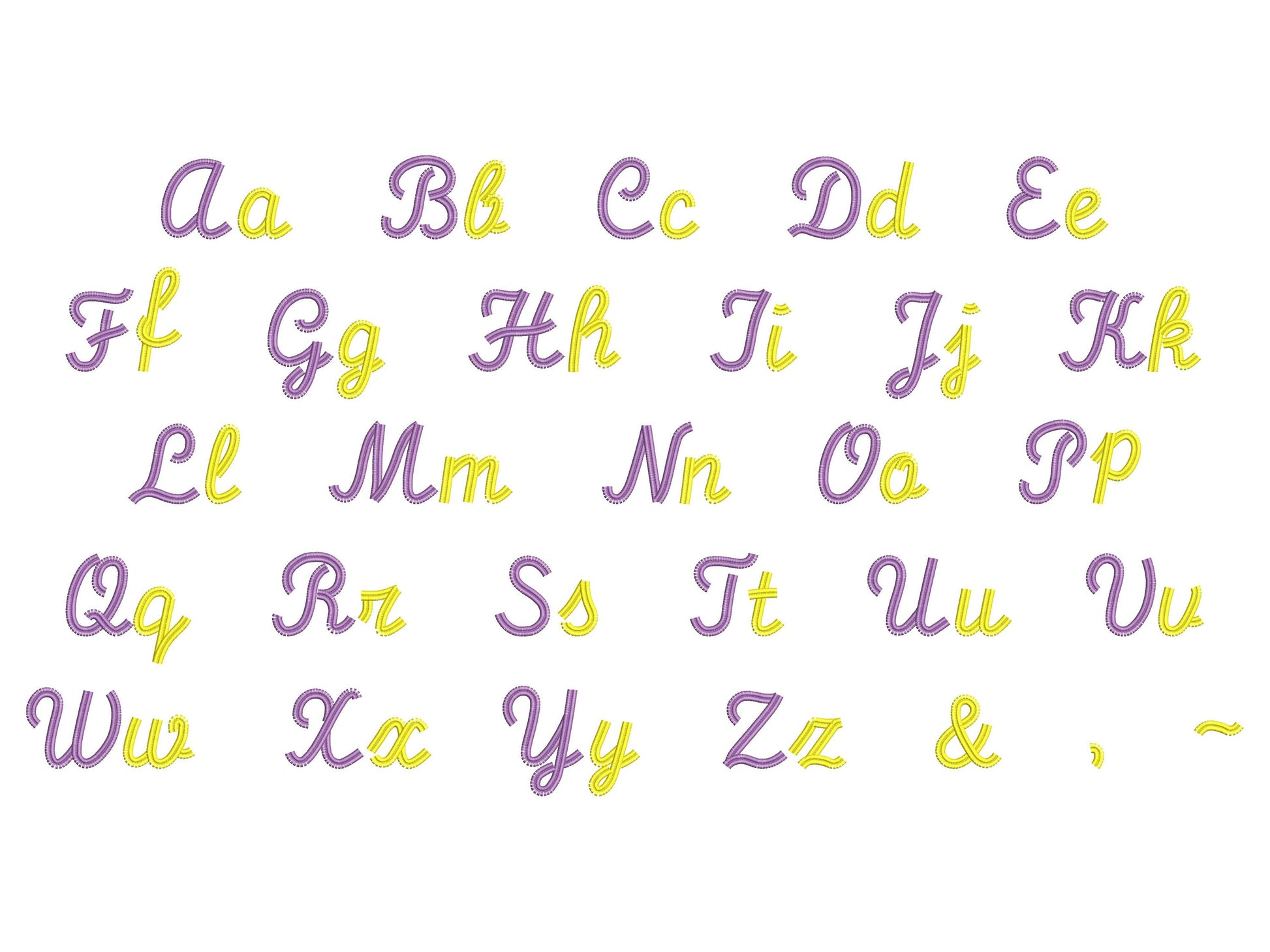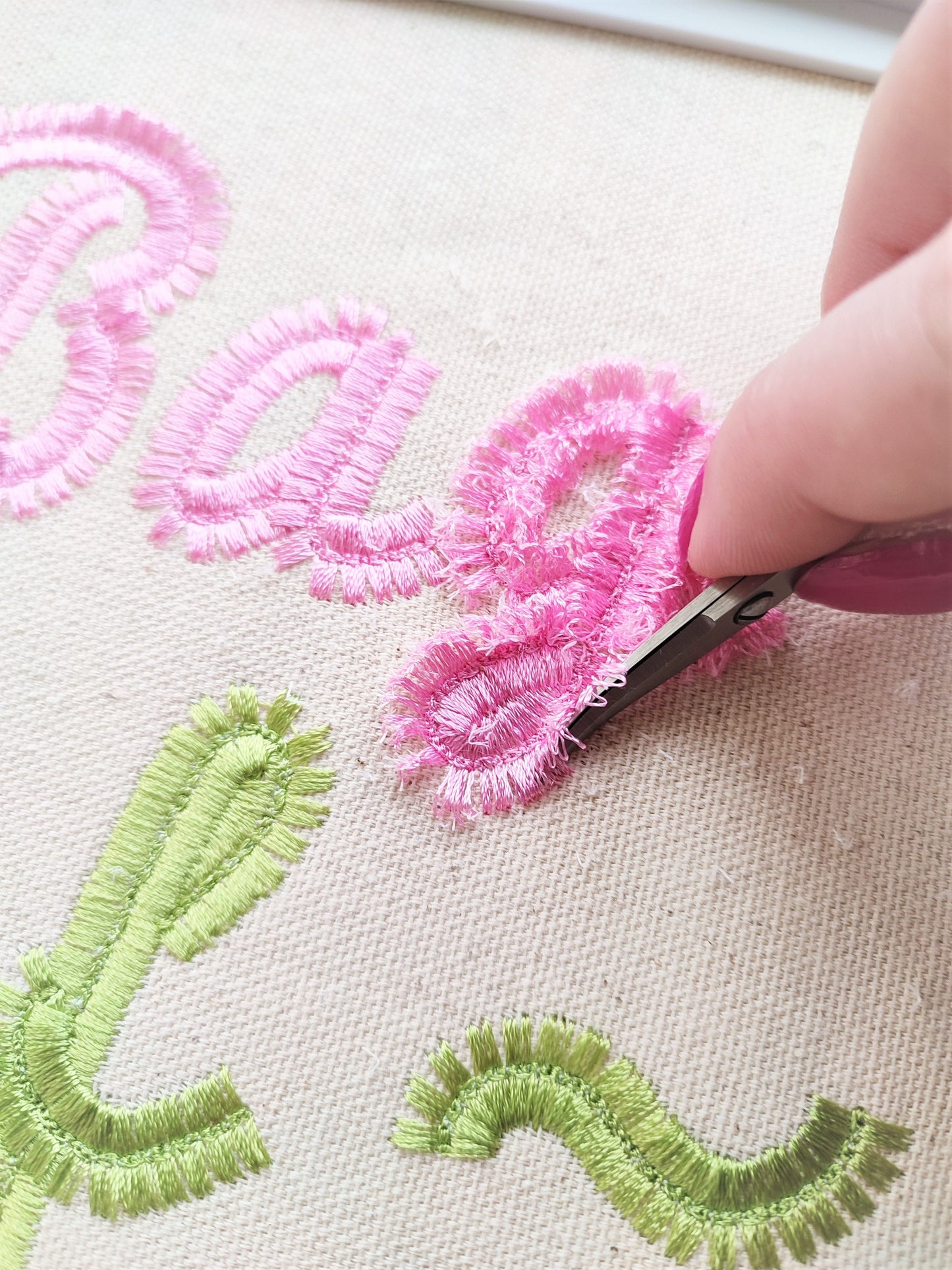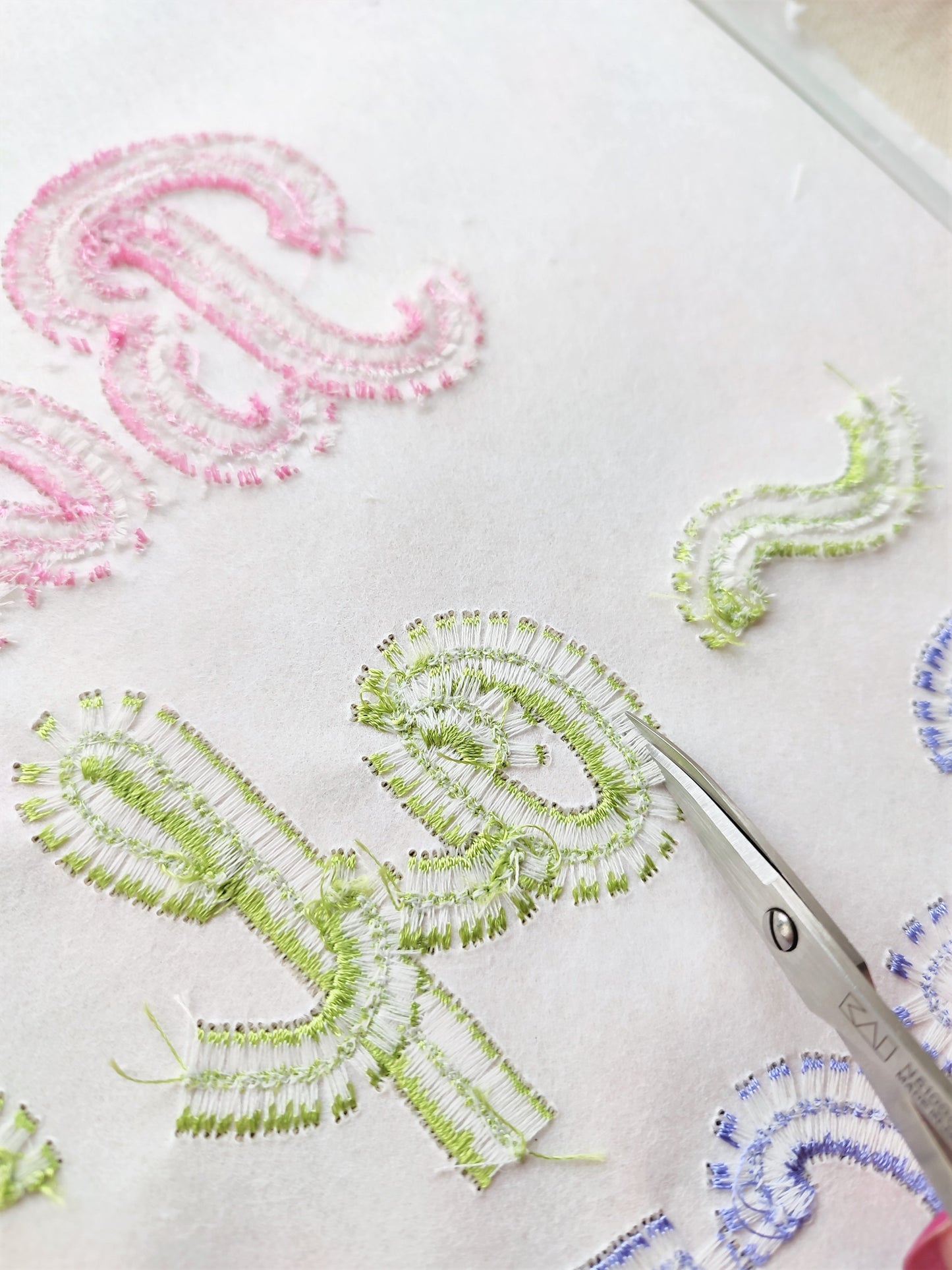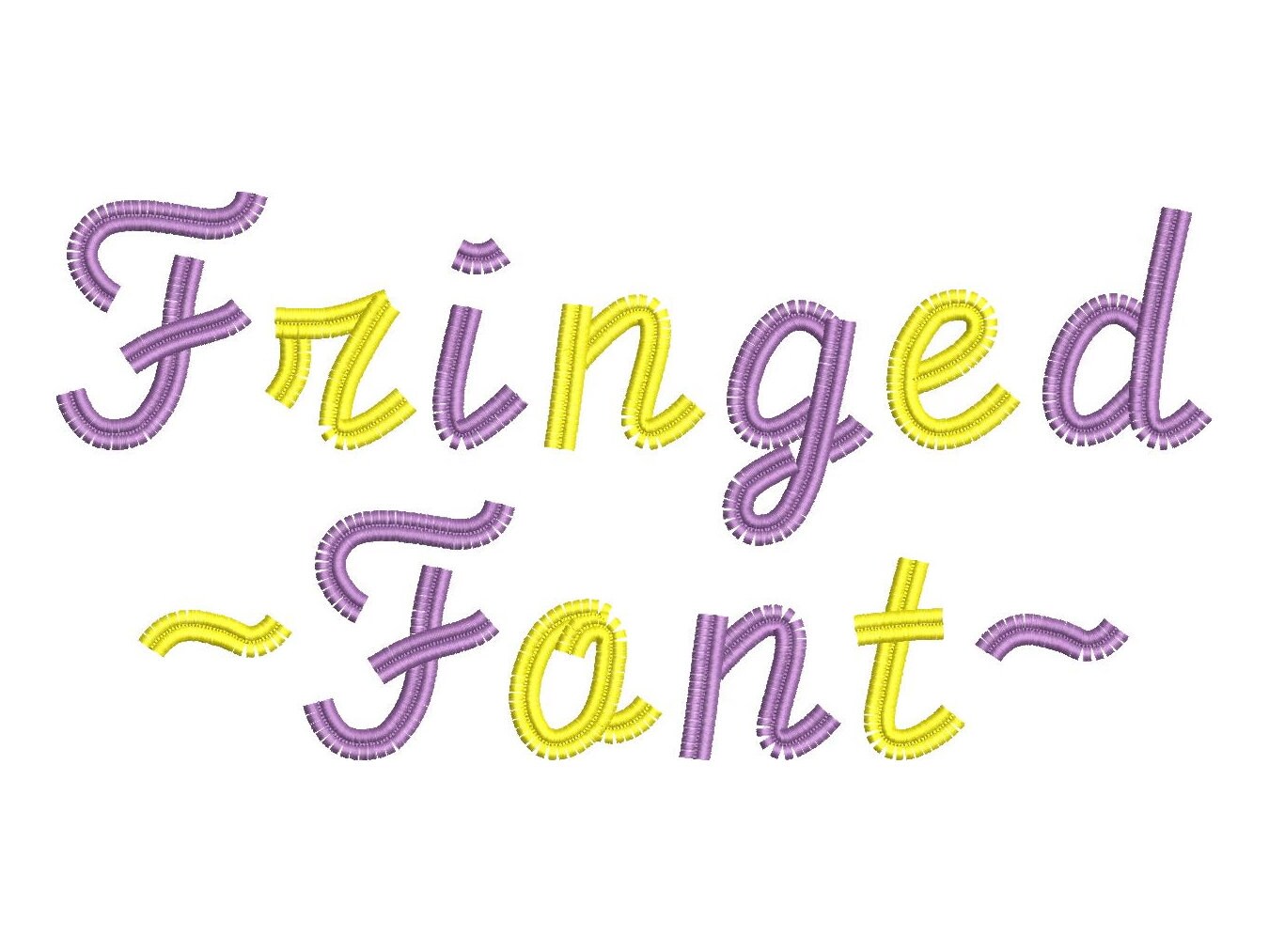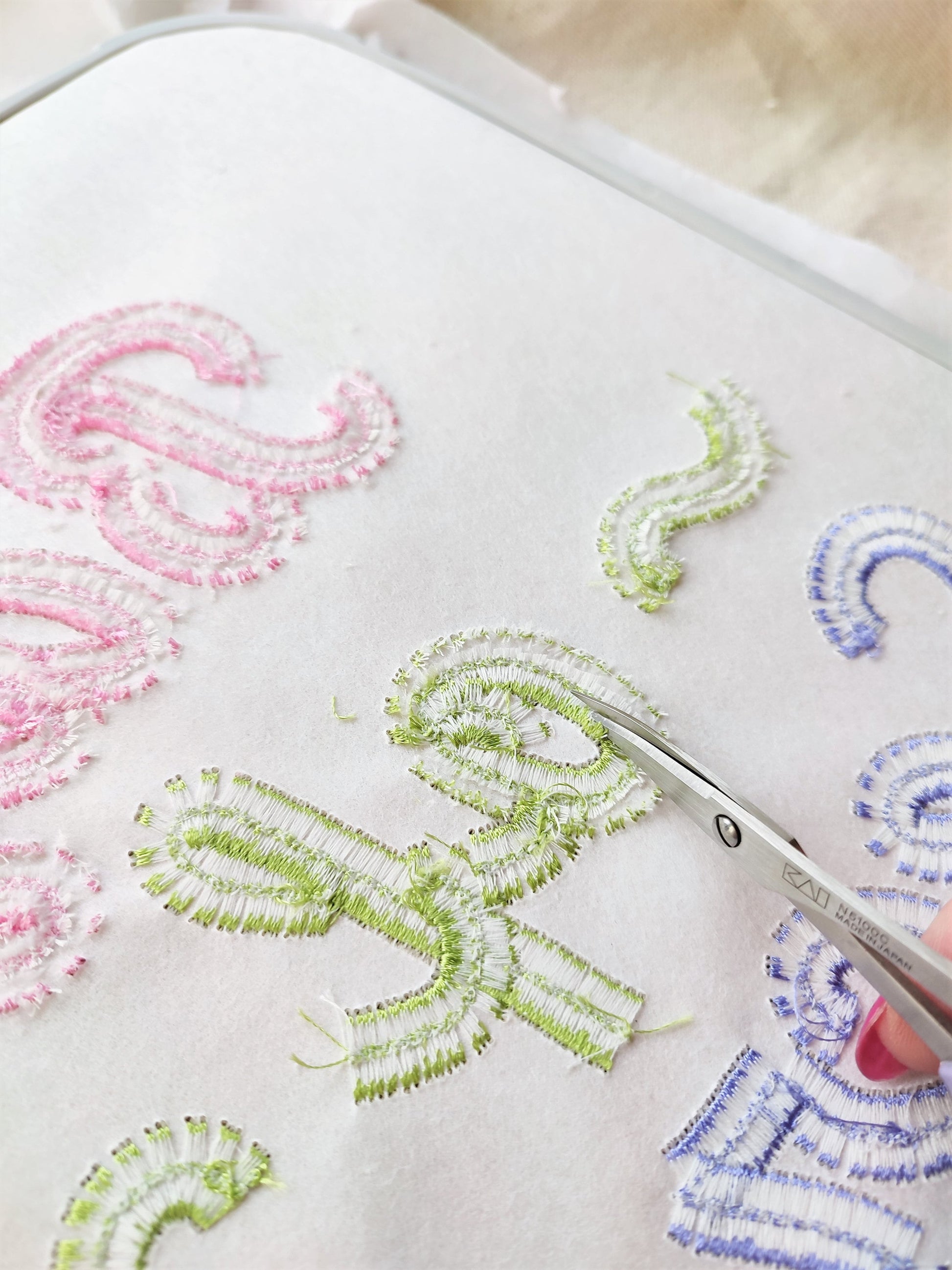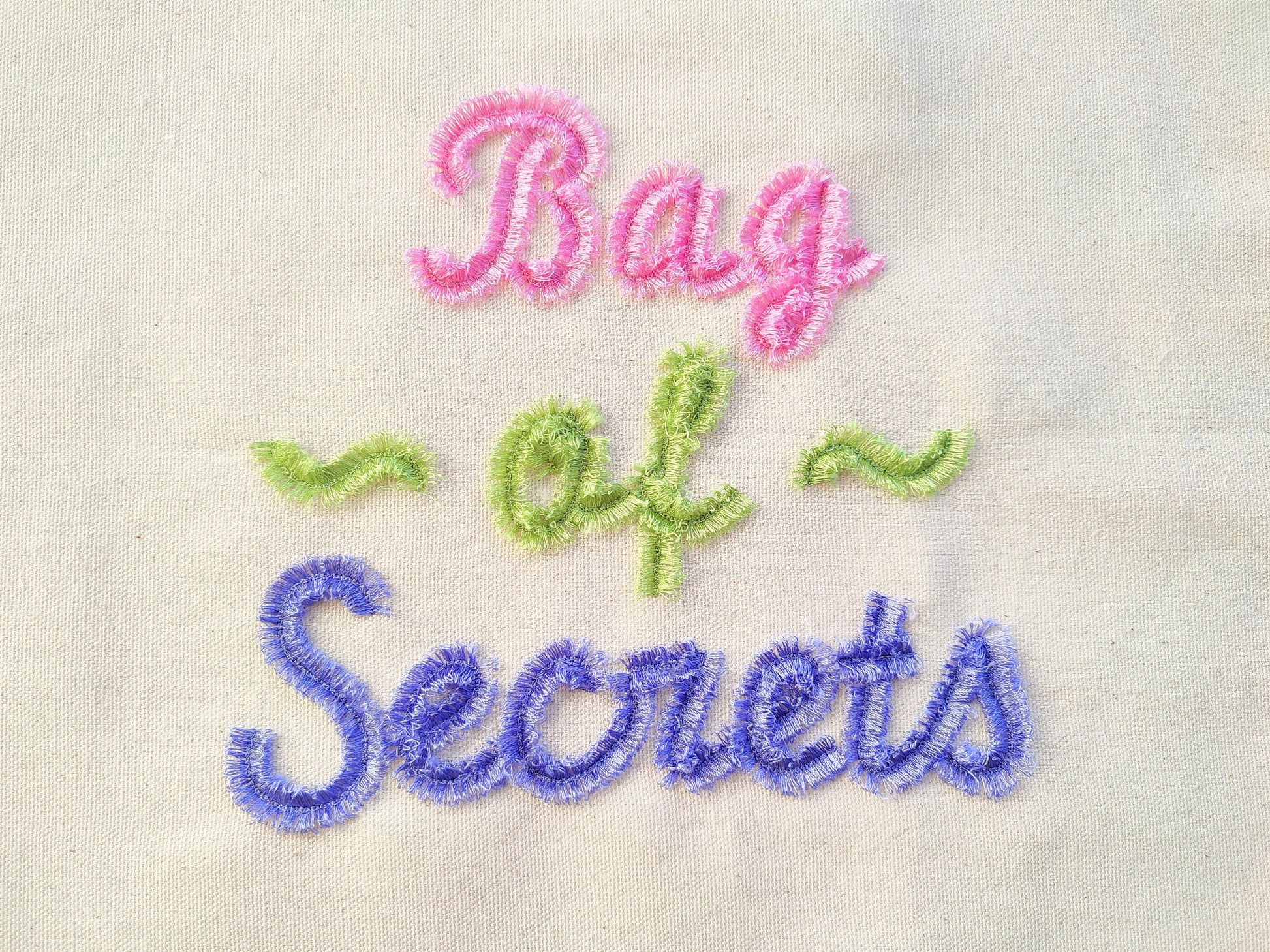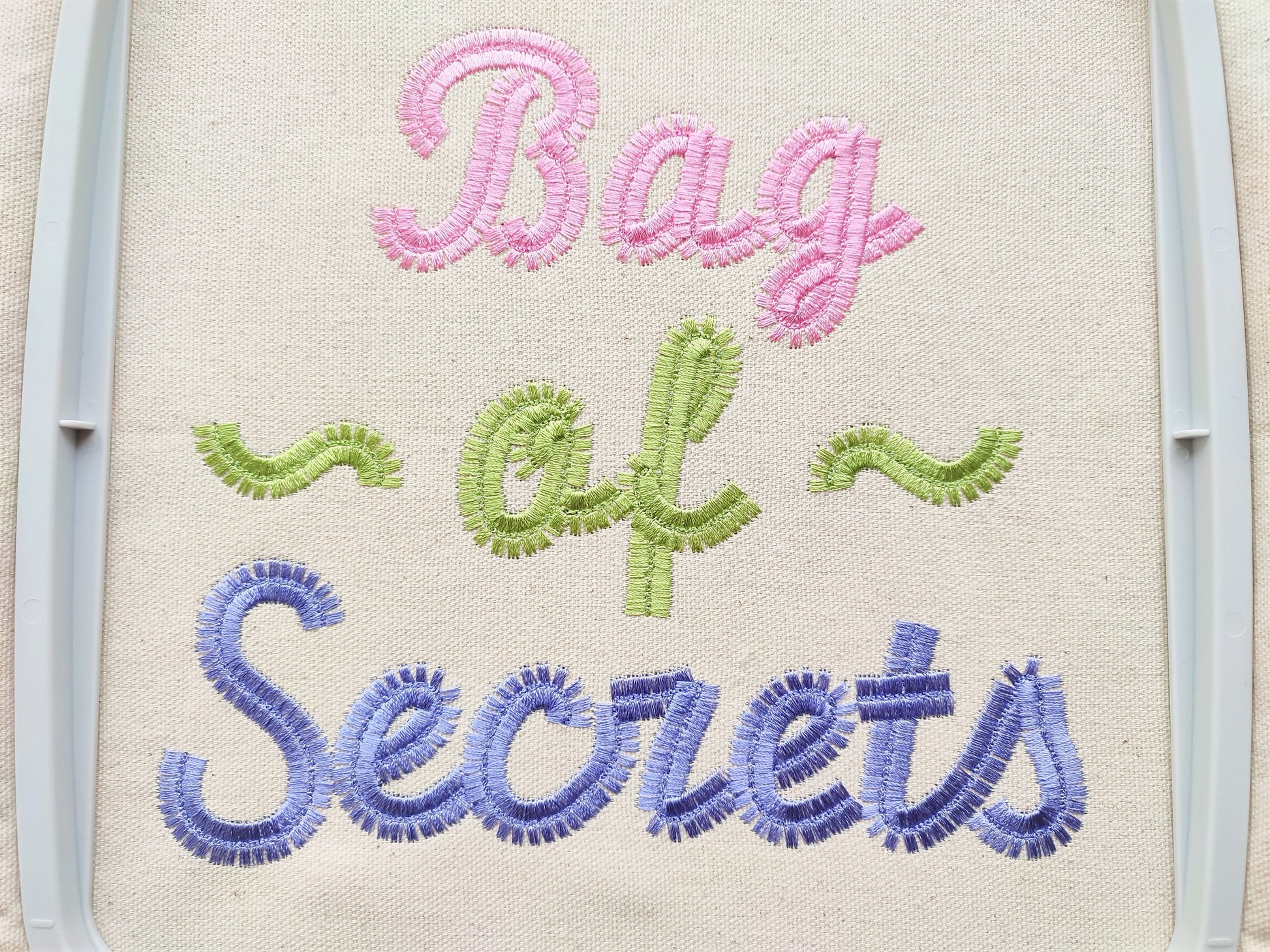
Or click to open the linkA fluffy fringed handwritten font. Girly and pretty for names and monograms on pillows, sweatshirts, bags and gifts.
Uppercase and lowercase letters, plus &, comma, dash and period. Four sizes: 2, 2.5, 3 and 3.3 inches. A tack seam holds the fringe in place, so it is safe to machine wash.